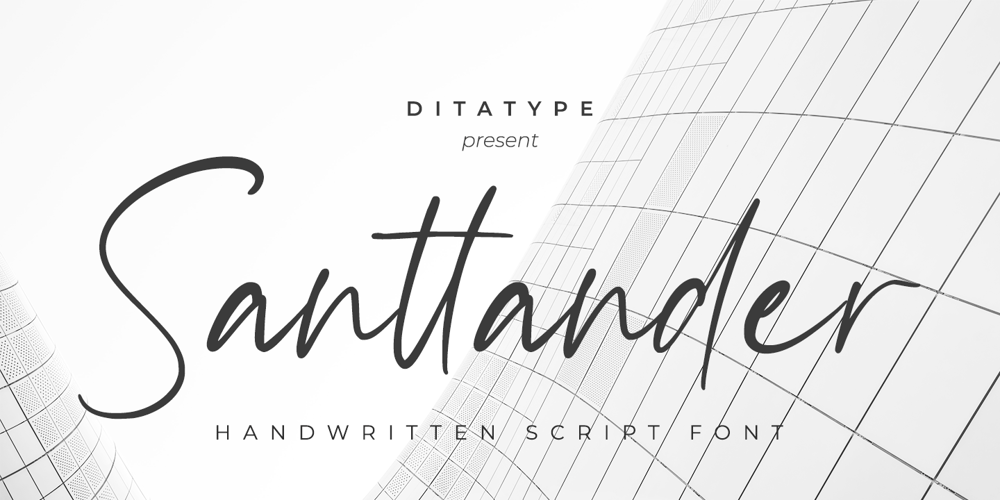
Santtander
Santtander font
Santtander Font Family was designed by Donis Miftahudin and published by Ditatype. Santtander contains 1 styles and family package options. Santtander is a modern handwritten font. With a classy and natural handwritten style, it brings a classy and chic typeface. Santtander is best used for weddings, branding, logotype, and quotes.Includes: – Santtander (OTF)Features: – Beautiful Ligatures – PUA Encoded – Multilingual Support – Numerals and Punctuation